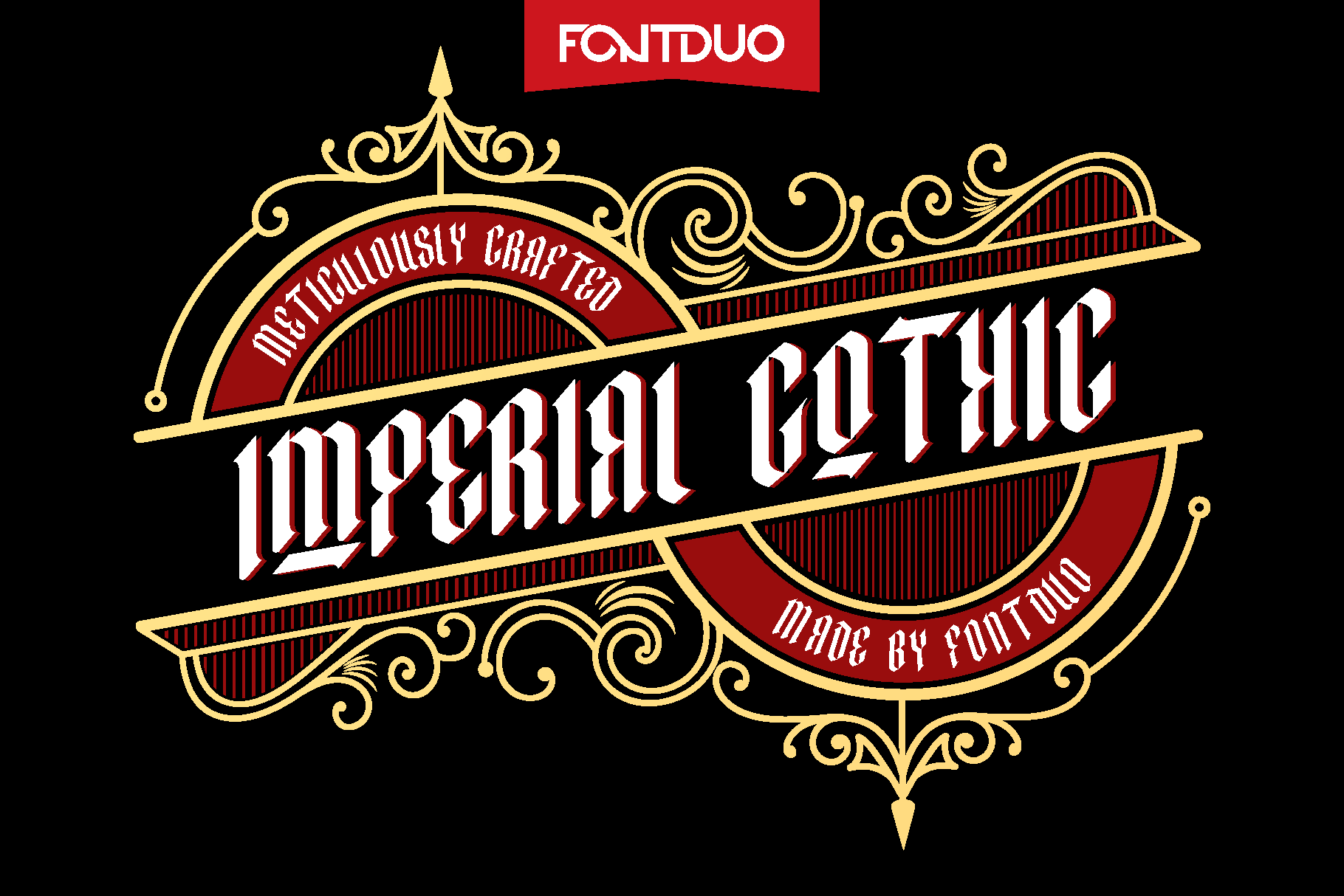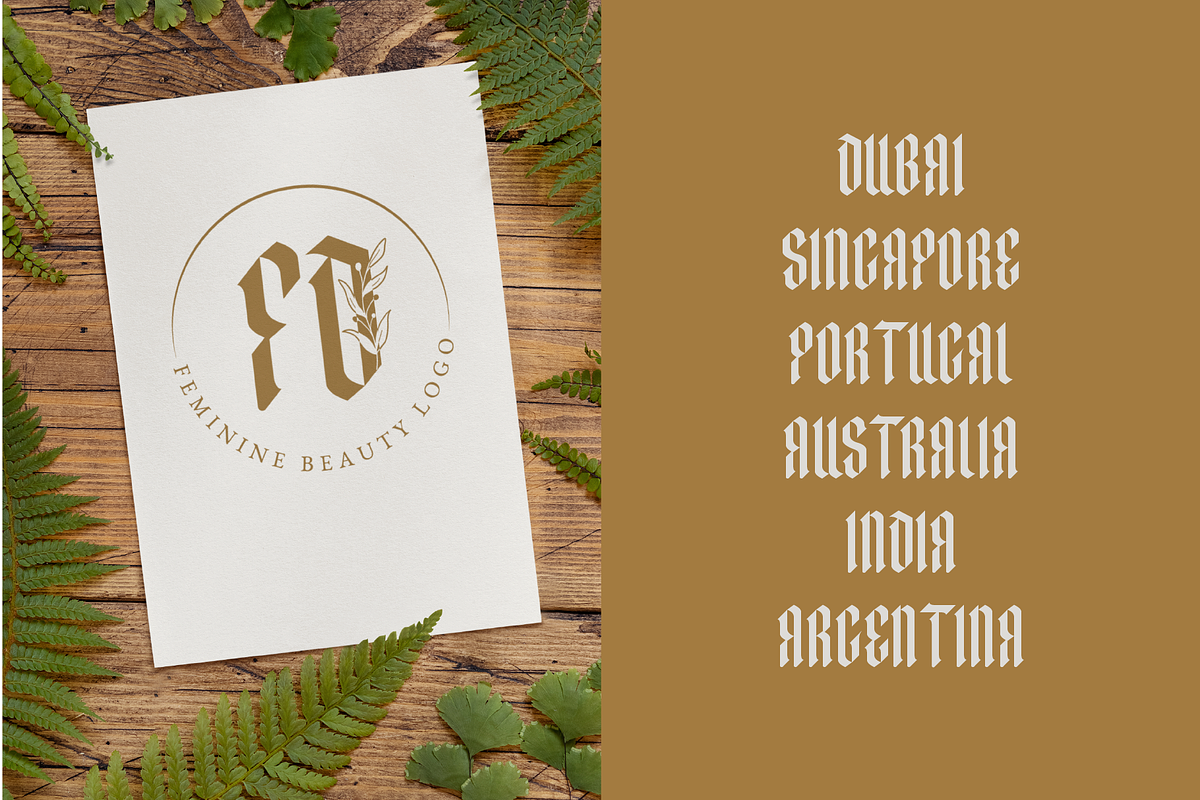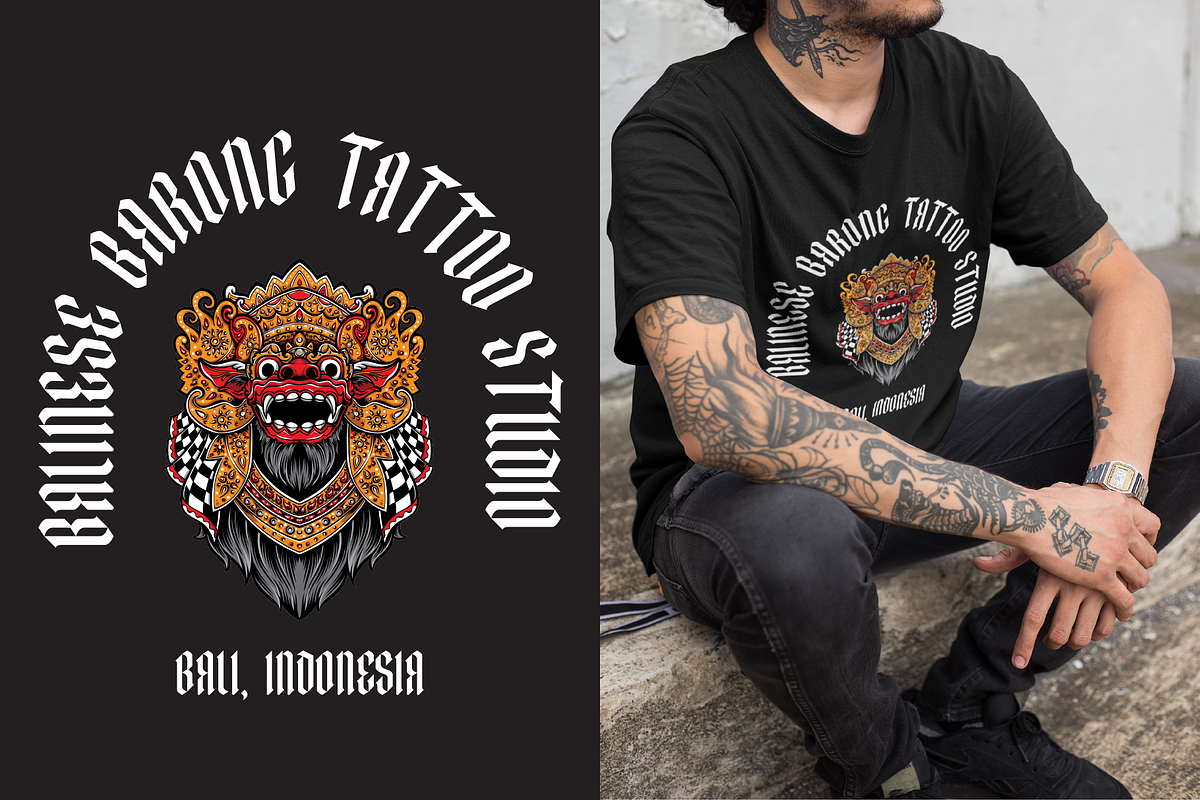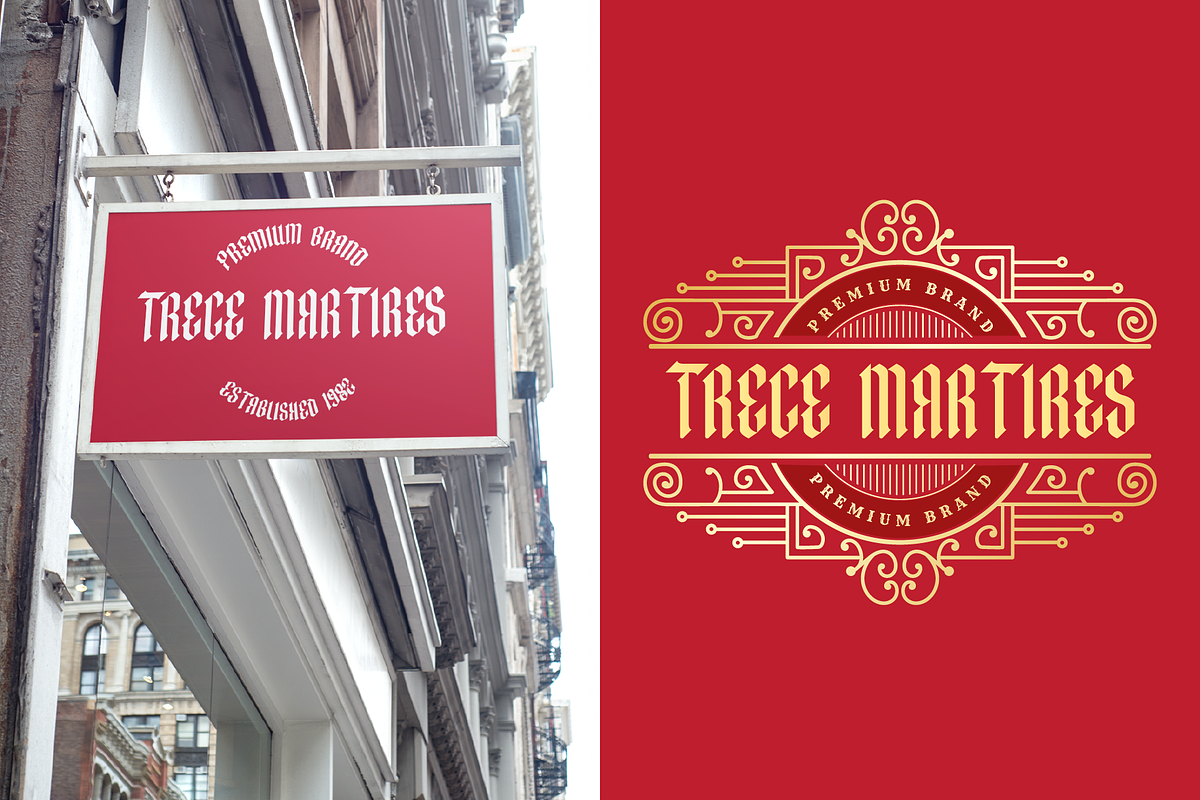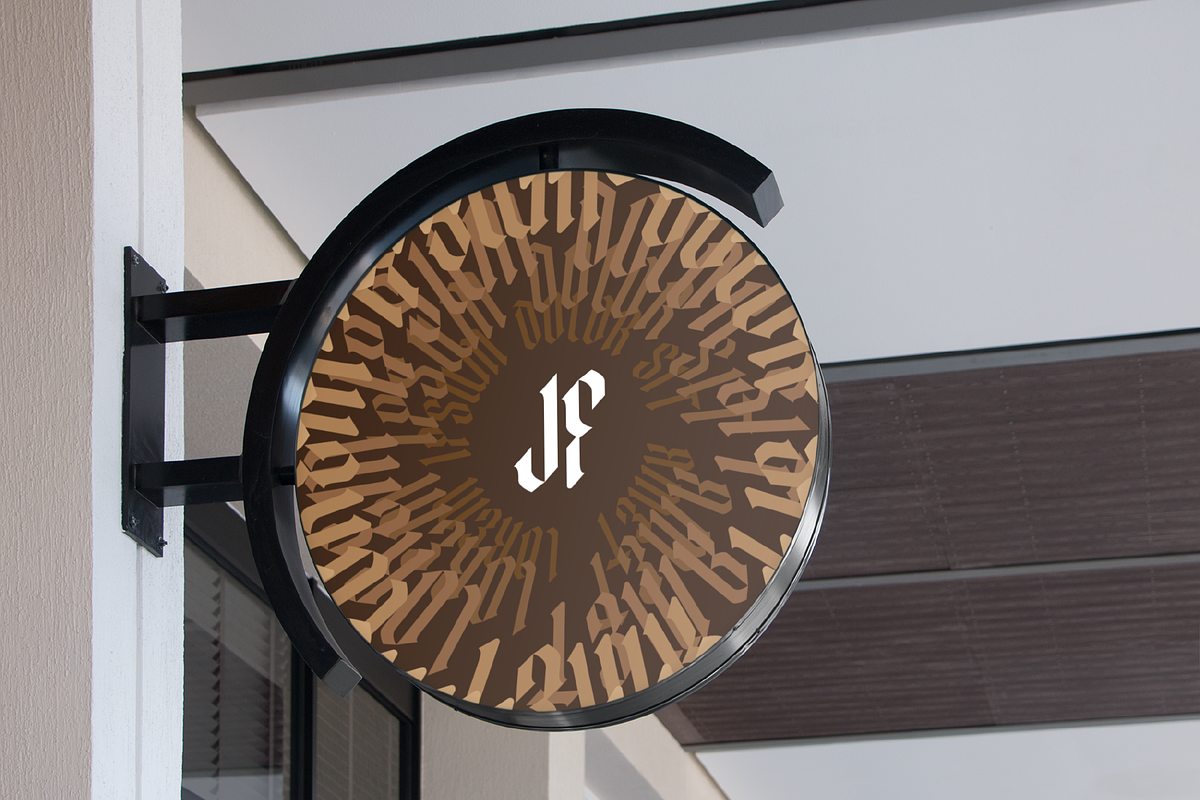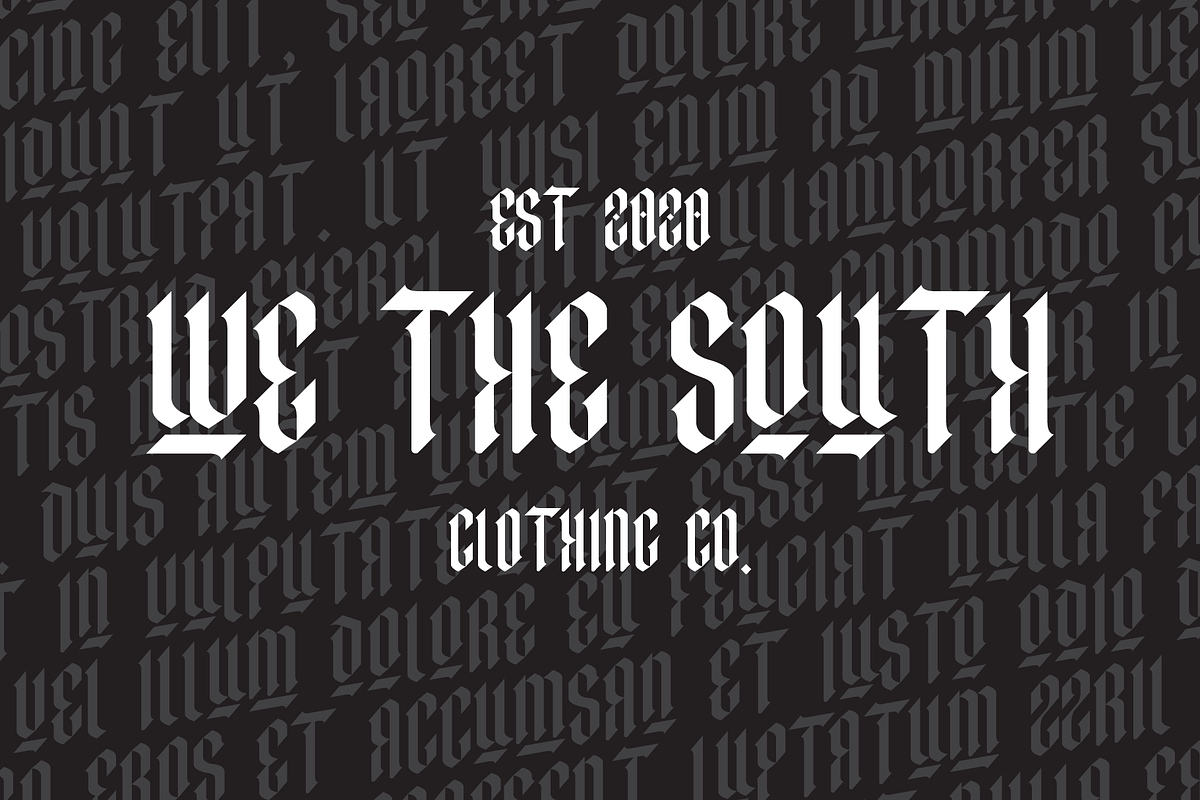
Imperial Gothic Font
Designed by FontDuo, Imperial Gothic FD is a blackletter font. A must-try blackletter layer Cricut font, Silhouette fonts, and Procreate font for your next crafting project.